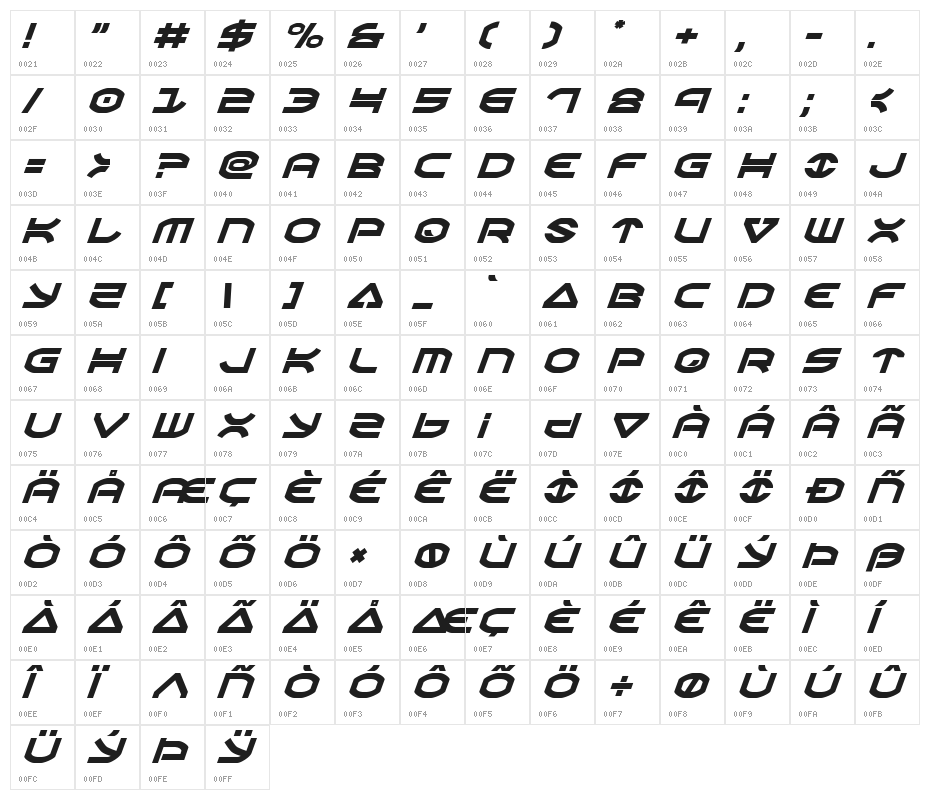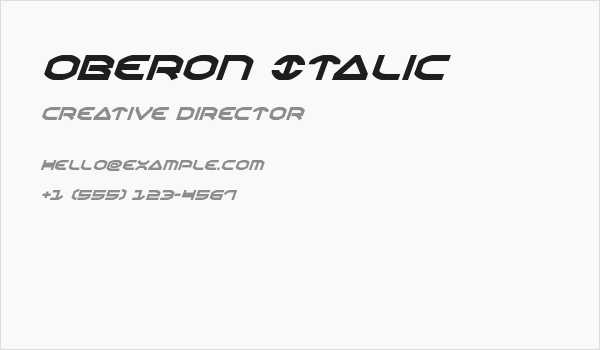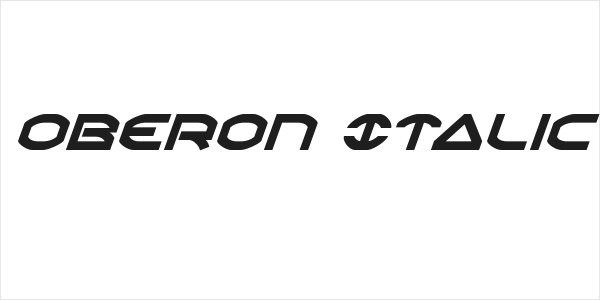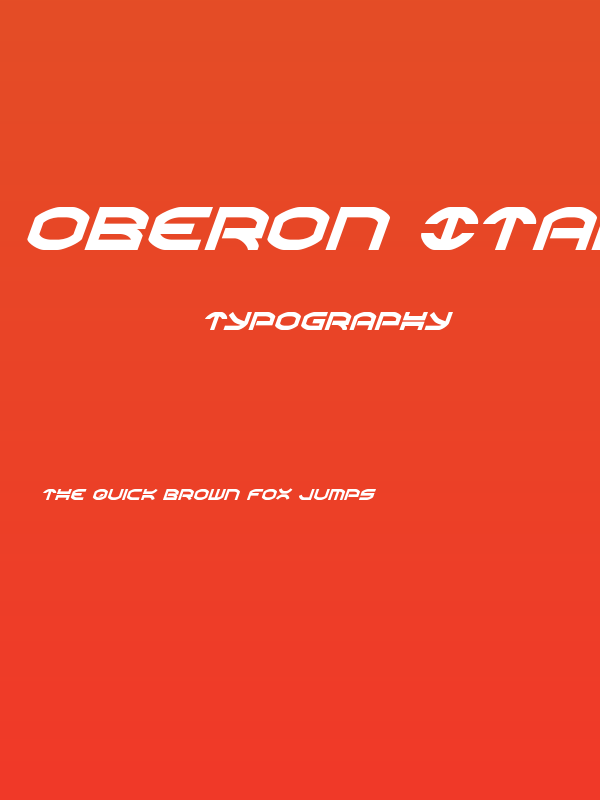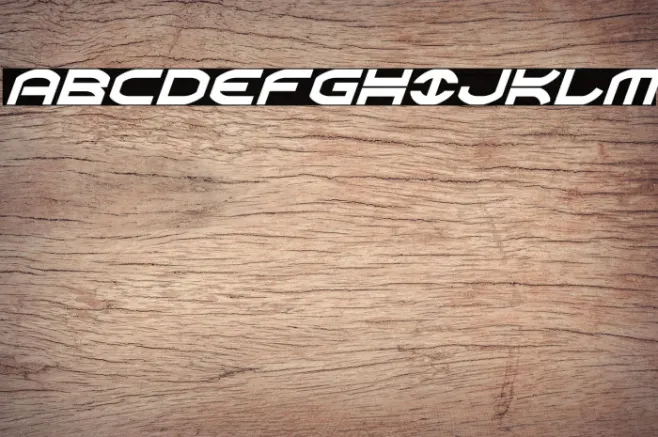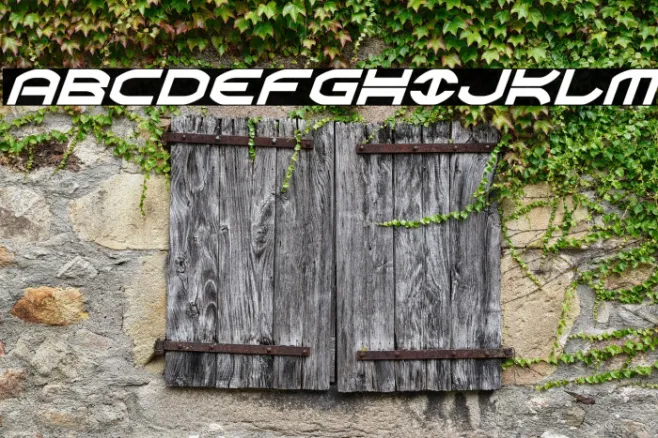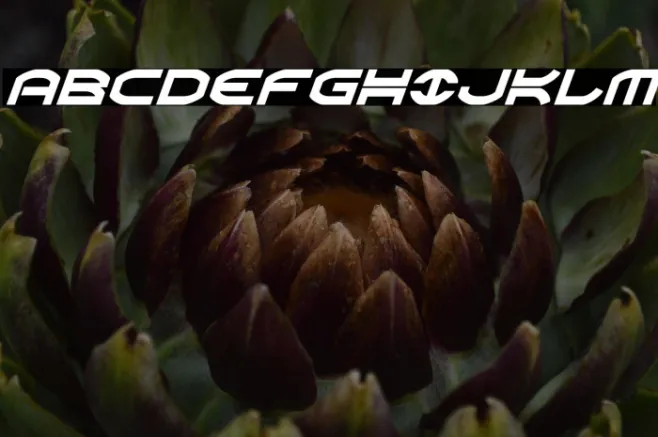
Oberon Italic Font
Oberon Italic Description
This font features a futuristic and dynamic design, characterized by its italicized, forward-leaning stance. The characters are bold and geometric, with sharp angles and unique cutouts that give it a distinctive, tech-inspired look. The uppercase and lowercase letters maintain a consistent style, with a strong emphasis on horizontal lines and angular forms. Numbers and special characters are equally stylized, ensuring a cohesive appearance across all glyphs. This font's modern aesthetic makes it suitable for projects that require a cutting-edge, digital feel.
| Use Case | Headlines, Logos, Digital Media |
| Proposed Projects | Ideal for technology branding, sci-fi movie posters, video game titles, and digital media. |